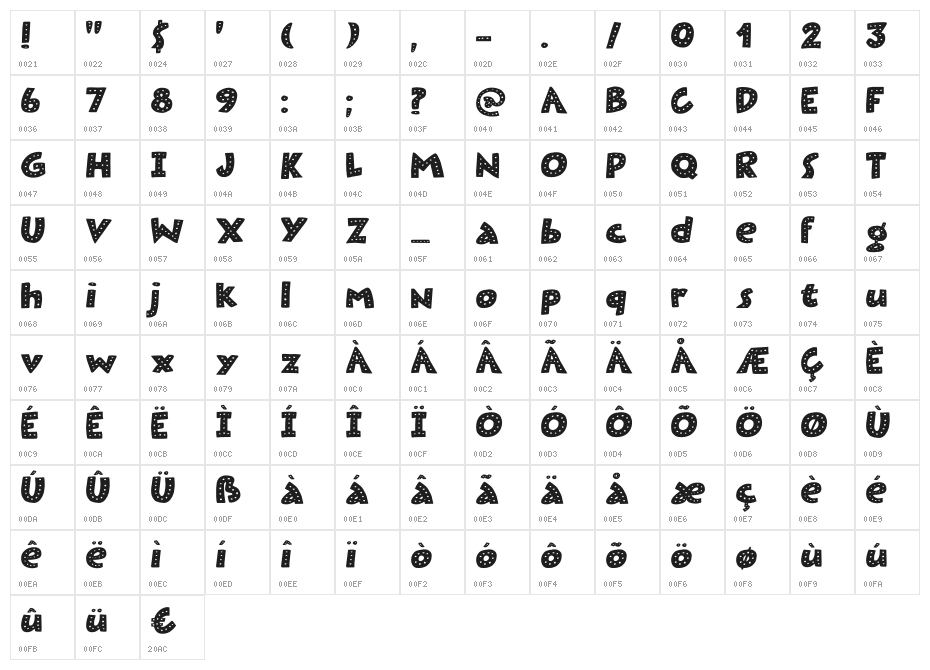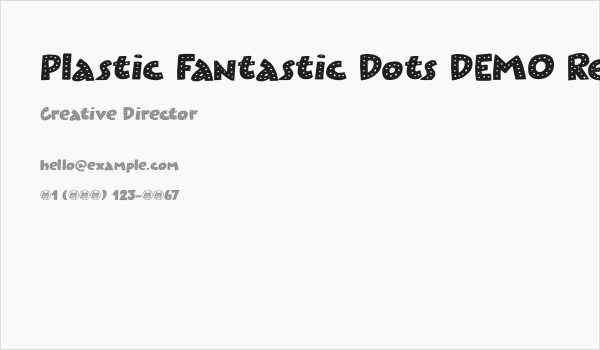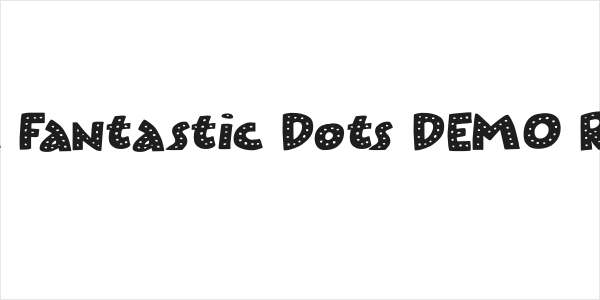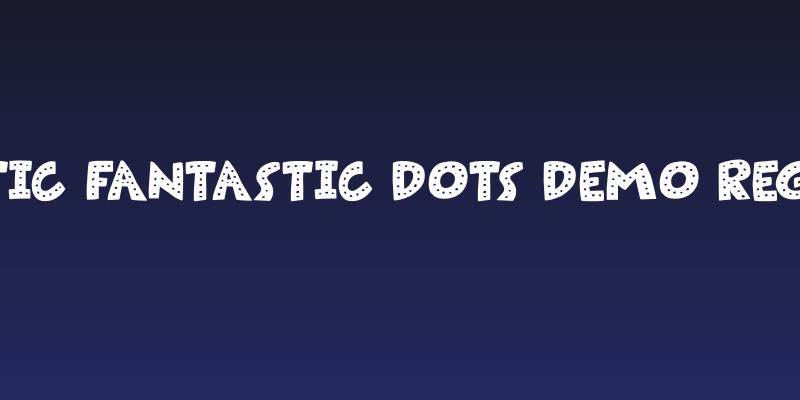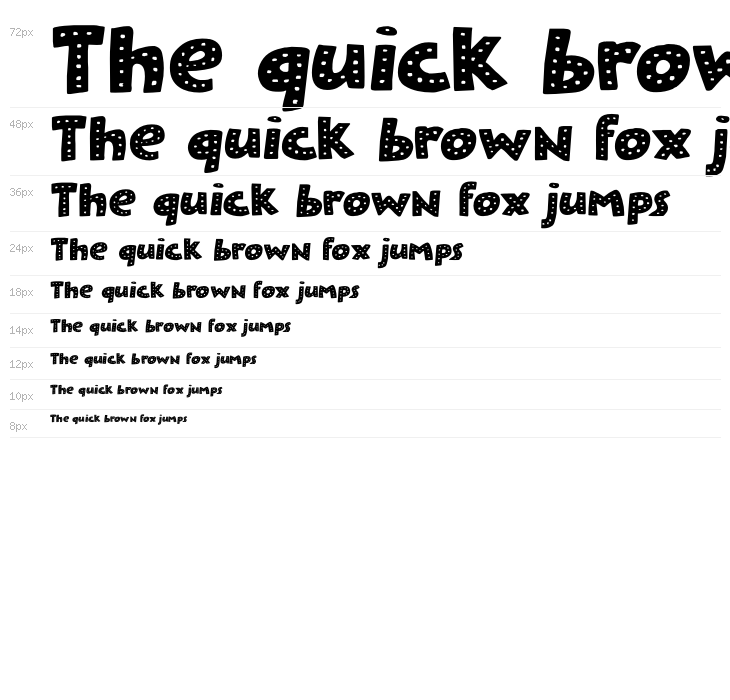
Plastic Fantastic Dots DEMO Regular Font
Plastic Fantastic Dots DEMO Regular Description
This playful and whimsical font features bold, rounded characters adorned with evenly spaced dots, creating a lively and eye-catching appearance. The uppercase and lowercase letters maintain a consistent style, with a slight tilt adding to the dynamic feel. Numbers and special characters follow the same dotted pattern, ensuring uniformity across all glyphs. The font's unique design makes it ideal for projects that require a fun and engaging aesthetic, such as children's books, party invitations, or playful branding. Its bold presence and decorative nature make it stand out in any creative project.
| Use Case | Headlines, Logos, Decorative Text |
| Proposed Projects | Ideal for children's books, party invitations, playful branding, and creative projects needing a fun aesthetic. |